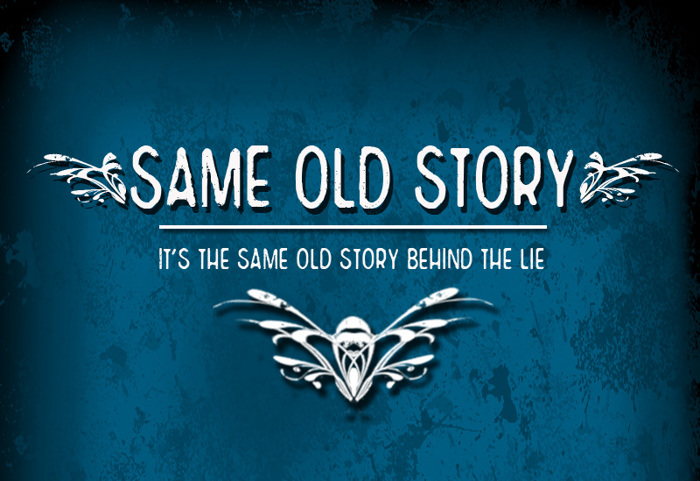
CF Same Old Story Font
About CF Same Old Story Font
I created this font listening to a song of band Pennywise this week that inspired me for this font. Thank you for your message, my family is doing well. God bless you.
What is the song about?
I'm also curious, regarding the decorative characters (the ones corresponding to ), as to why you chose these images.